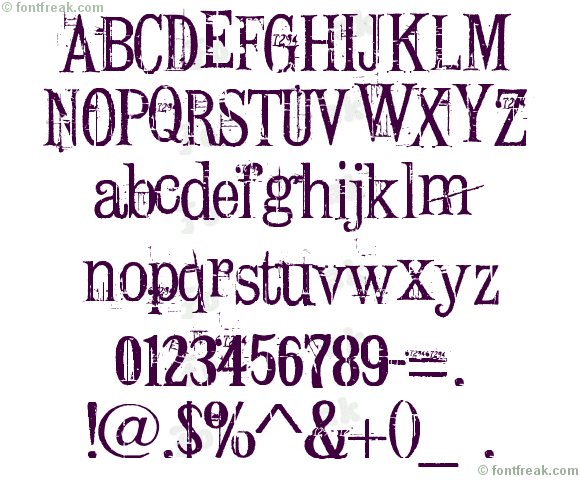
ConradVeidt
About ConradVeidt
ConradVeidt, created by Bumbayo Font Fabrik, is a striking display font that captures attention with its unique visual flair. This font features a bold, textured style reminiscent of vintage typefaces, making it perfect for projects that require a touch of nostalgia combined with modern aesthetics. The irregular stroke weight and charming imperfections give it a handcrafted feel, while the generous spacing between letters ensures readability even in larger formats.
Due to its distinctive characteristics, the ConradVeidt font is ideal for a variety of creative applications. It works wonderfully for movie posters, where it can evoke the allure of classic cinema. Additionally, it is an excellent choice for restaurant menus, infusing a sense of character and personality into the dining experience. Designers looking to craft memorable branding for artisanal businesses will find this font to be an asset, as it enhances the uniqueness of logos and packaging. Furthermore, ConradVeidt is suitable for wedding invitations, offering a romantic yet bold touch that complements various themes.
What sets the ConradVeidt font apart is its ability to blend vintage charm with contemporary design sensibilities. This versatile typeface stands out not only for its aesthetic appeal but also for its functionality across multiple mediums. Whether you are crafting a brand identity or designing promotional materials, the ConradVeidt font free download offers a unique opportunity to make your projects memorable and visually engaging.